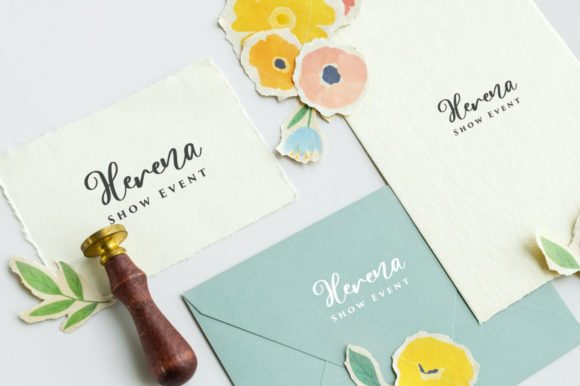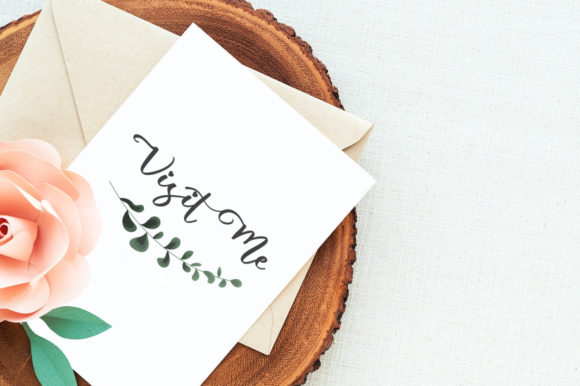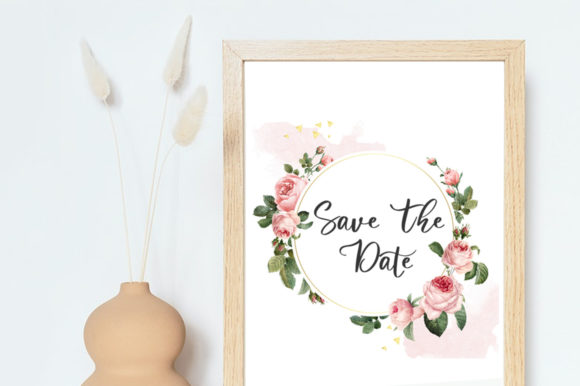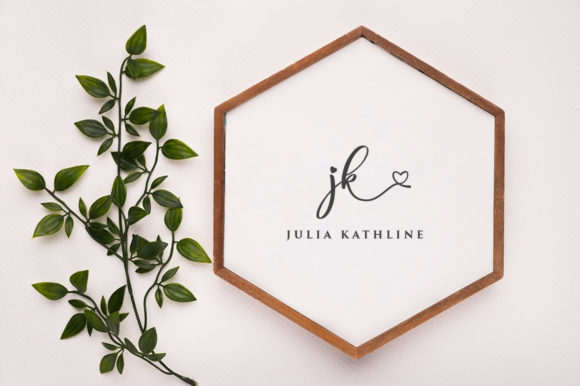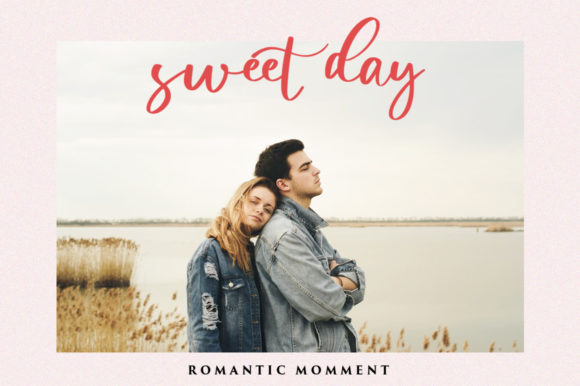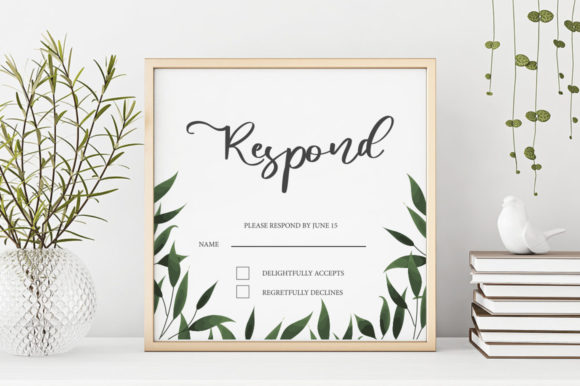
Introducing Abiland Font: The Ultimate Handwritten Font for Creative Projects
Are you a designer, crafter, or DIY enthusiast looking for a font that can add a touch of personality to your creative projects? Look no further than Abiland Font! This cute and casual handwritten font is designed to bring a friendly feel to any design, making it perfect for a wide range of applications, from Instagram posts to calligraphy scripts.
What Makes Abiland Font So Special?
Abiland Font is more than just a font – it’s a tool for creative expression. With its incredibly friendly feel, this font can turn any design idea into a true piece of art. Whether you’re looking to add a personal touch to your Instagram posts, create beautiful calligraphy scripts for DIY projects, or design eye-catching signs and banners, Abiland Font is the perfect choice.
Key Features of Abiland Font
- Cute and Casual Design: Abiland Font features a playful, handwritten design that’s perfect for creating friendly and approachable designs.
- Incredibly Friendly Feel: The font’s unique character and charm make it perfect for designs that require a personal touch.
- Versatile: Abiland Font can be used for a wide range of applications, from digital designs to print projects.
- Easy to Read: Despite its playful design, Abiland Font is easy to read, making it perfect for body text and headings.
Uses for Abiland Font
Abiland Font is a versatile font that can be used for a wide range of creative projects, including:
- Instagram Posts: Add a personal touch to your Instagram posts with Abiland Font, perfect for creating eye-catching captions and quotes.
- DIY Projects: Use Abiland Font to create beautiful calligraphy scripts for DIY projects, such as handmade cards, gift tags, and more.
- Signs and Banners: Create eye-catching signs and banners with Abiland Font, perfect for events, parties, and business promotions.
- Branding and Packaging: Use Abiland Font to add a personal touch to your branding and packaging, making your products stand out from the crowd.
Tips for Using Abiland Font
To get the most out of Abiland Font, here are a few tips to keep in mind:
- Experiment with Colors: Abiland Font looks great in a variety of colors, so don’t be afraid to experiment and find the perfect color scheme for your design.
- Mix and Match Fonts: Combine Abiland Font with other fonts to create a unique and eye-catching design.
- Use it for Headings and Titles: Abiland Font is perfect for headings and titles, adding a touch of personality to your design.
Abiland Font is a unique and versatile font that’s perfect for designers, crafters, and DIY enthusiasts. With its cute and casual design, incredibly friendly feel, and wide range of uses, Abiland Font is a must-have font for any creative project. So why wait? Download Abiland Font today and start turning your creative ideas into true pieces of art!